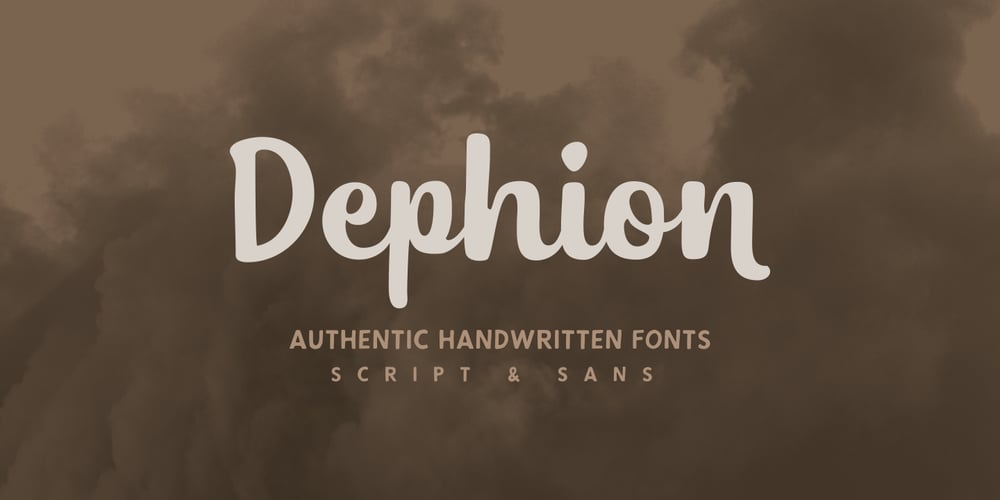
Dephion
Dephion font
Dephion Font Family was designed by Arwan Sutanto and published by Locomotype. Dephion contains 3 styles and family package options. In many ways, handmade items fit as collectibles, because they look unique and not boring. Dephion is one of the handmade fonts we made to give a casual and natural impression that brings modern style calligraphy made in a very manual way. We want to get out of the habit of seeing perfect font types by making the shape imperfect and irregular.Dephion presents three styles: Dephion Script Regular, Italic and Dephion Sans. You can pair them to create a variety of attractive designs with a sense of casual.